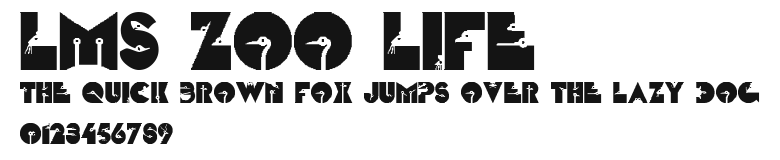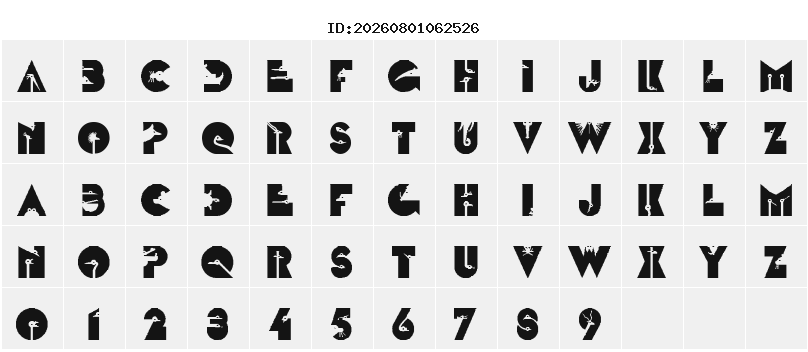
LMS Zoo Life Preview
• Font Name: LMS Zoo Life
• Full Font Name: LMS Zoo Life
About LMS Zoo Life.ttf
LMS Zoo Life.ttf is a modern, elegant sans-serif font designed for ultimate readability and visual harmony. Perfect for branding, headlines, web design, and print materials.